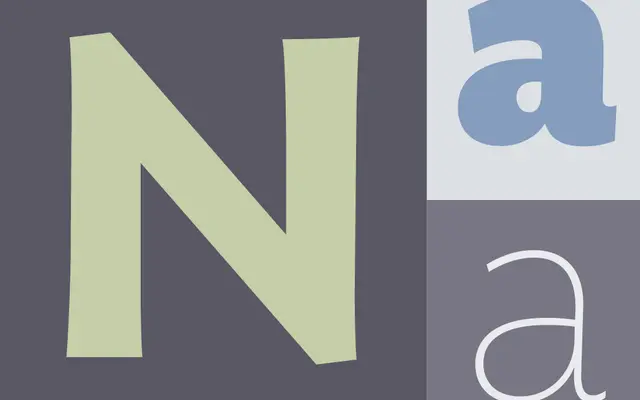
Ideal Sans
Hoefler & Co · Jonathan Hoefler, Tobias Frere-Jones, and the H&Co Design Studio · 2011
Ideal Sans specimen from Hoefler & Co
A humanist sans drawn over two decades, embracing the warmth and quiet irregularity of handmade letters across eight weights with italics.
A humanist sans by Jonathan Hoefler, Tobias Frere-Jones and the H&Co studio, developed over more than twenty years. It rejects the rigidity of geometric sans-serifs in favour of an honest, slightly imperfect drawing where calligraphic memory survives in the curves and joins. Eight weights from Thin to Black with matching italics make it a flexible text and identity face for brand systems, magazines and interfaces that want sans clarity with a human voice.
A humanist sans drawn over more than twenty years that embraces the irregularities of handmade letters, set as an honest, slightly imperfect counterpoint to geometric sans-serifs.